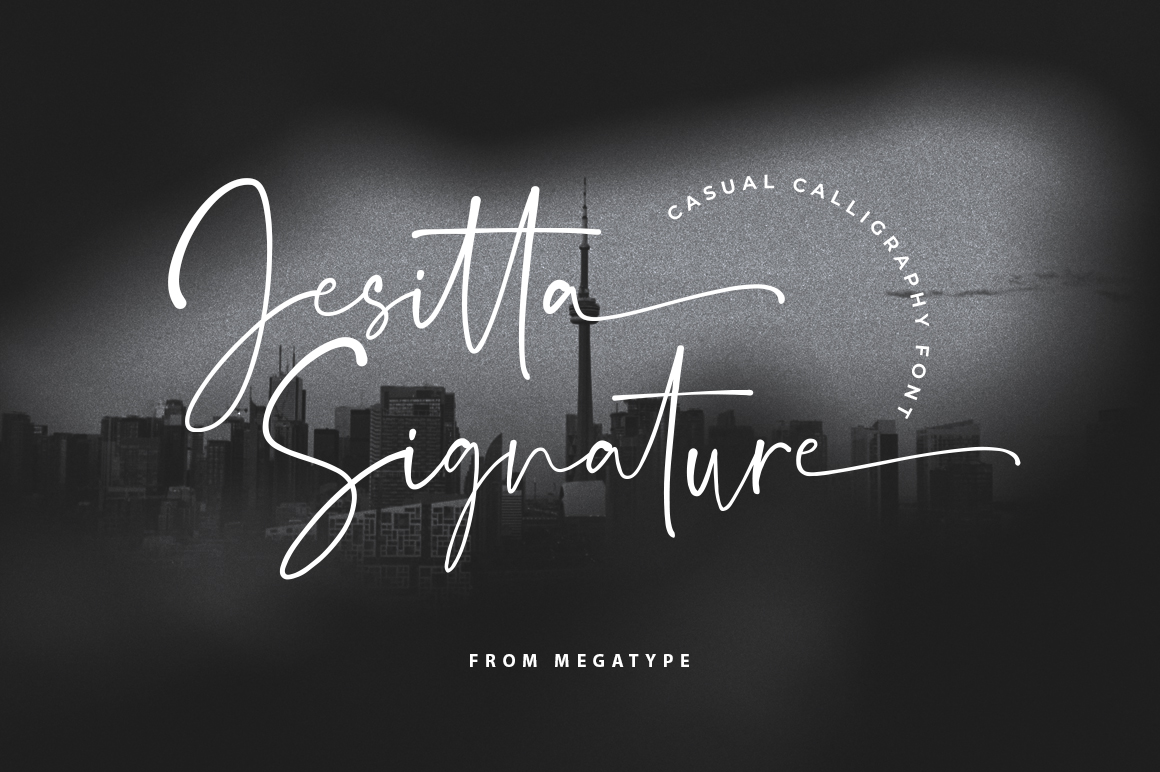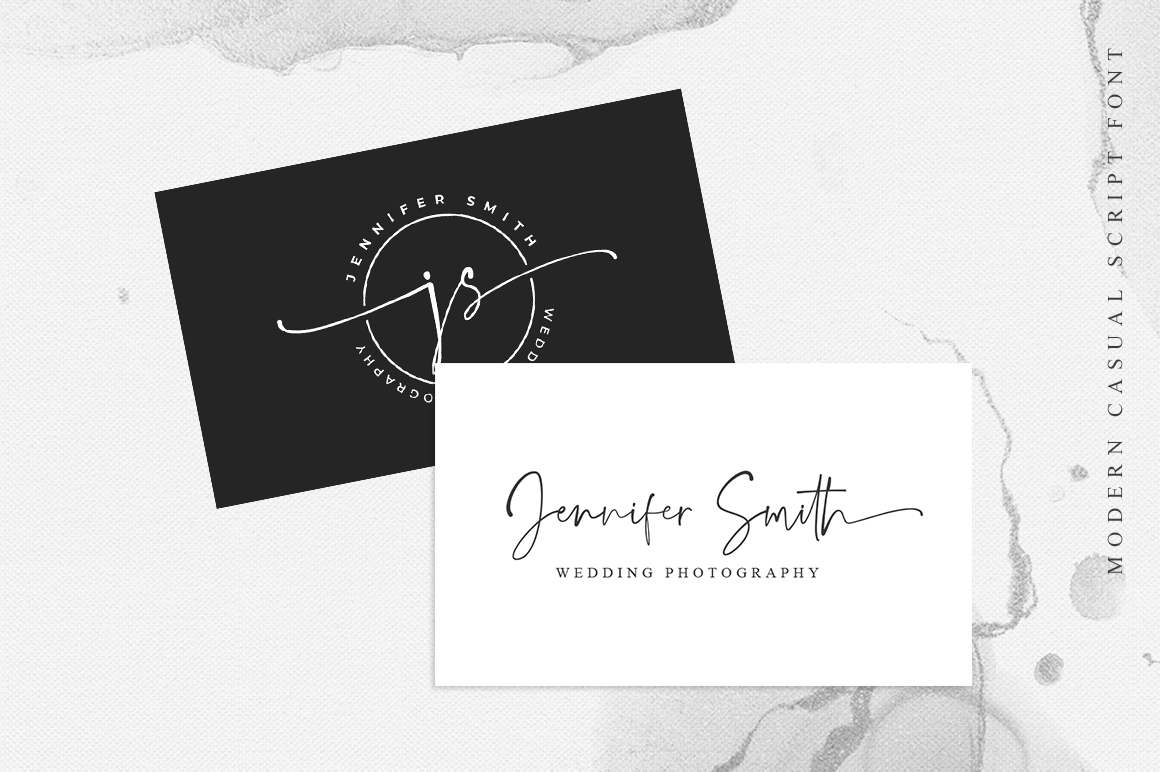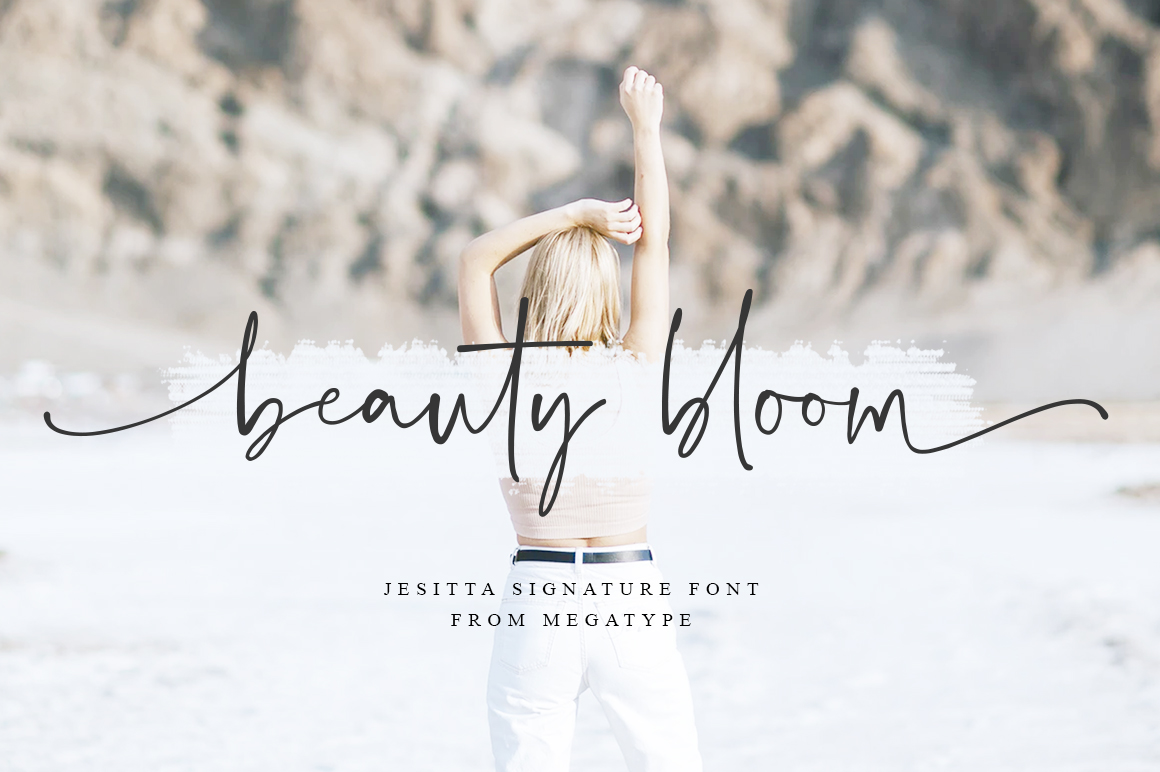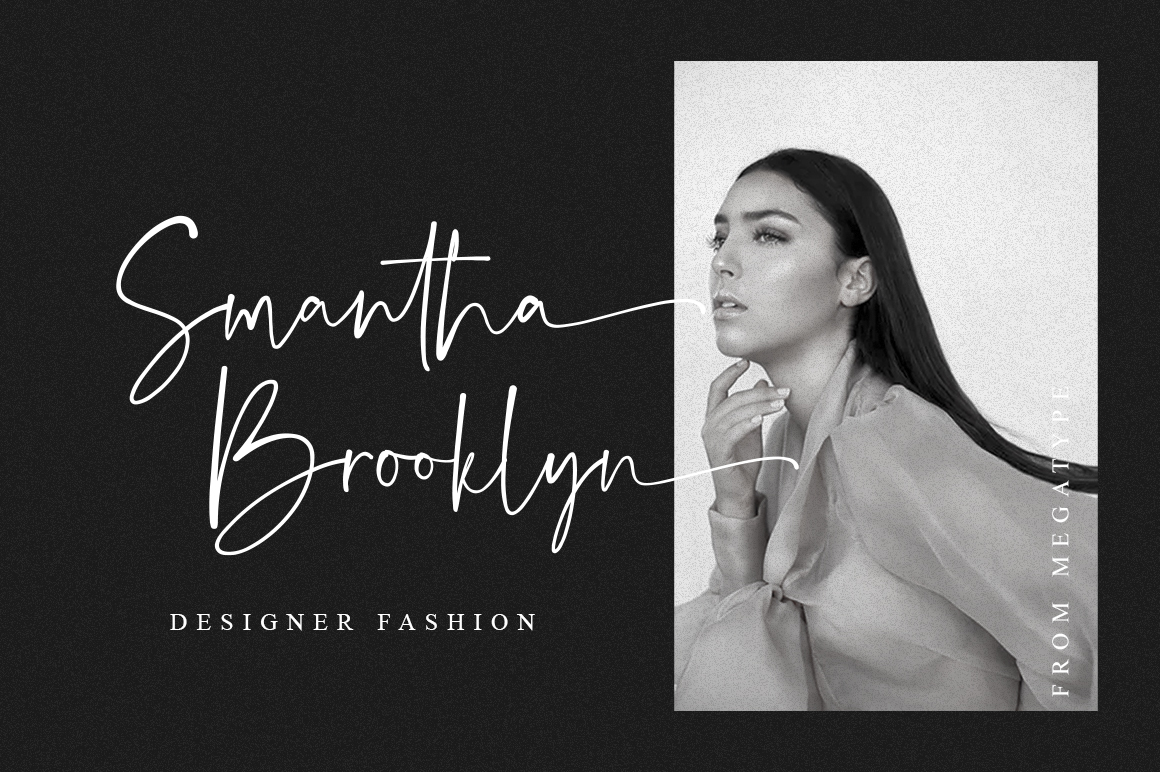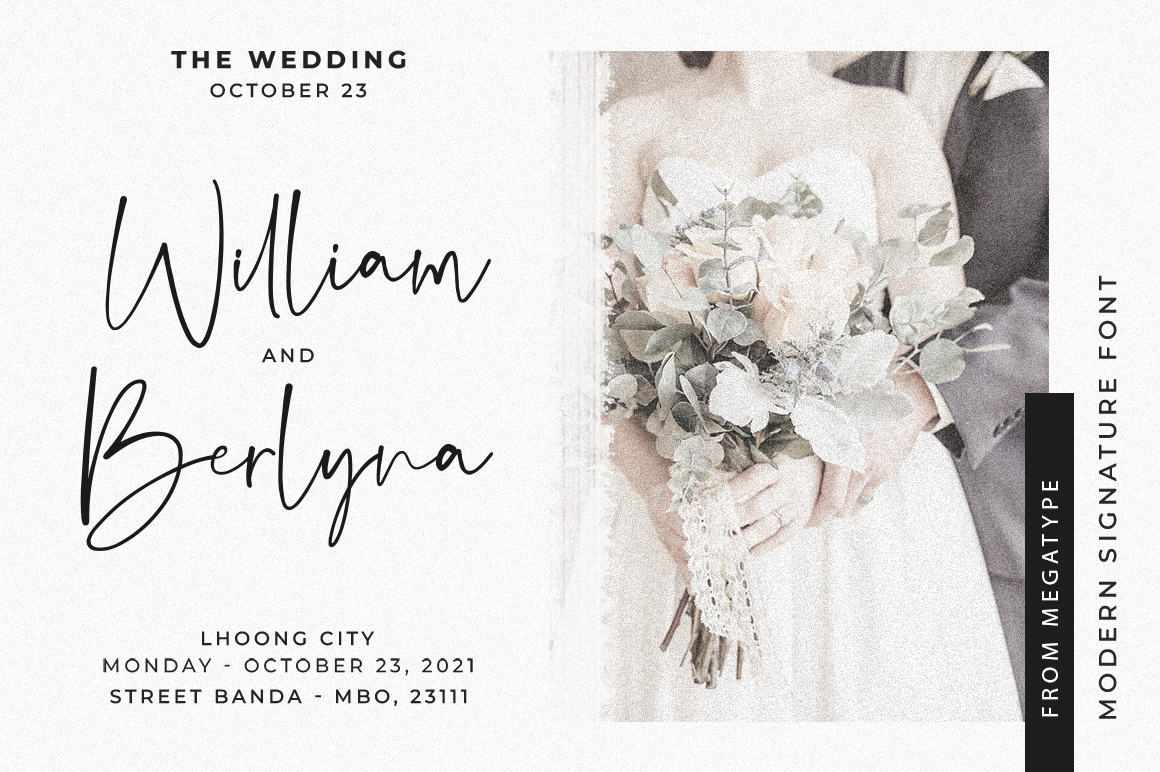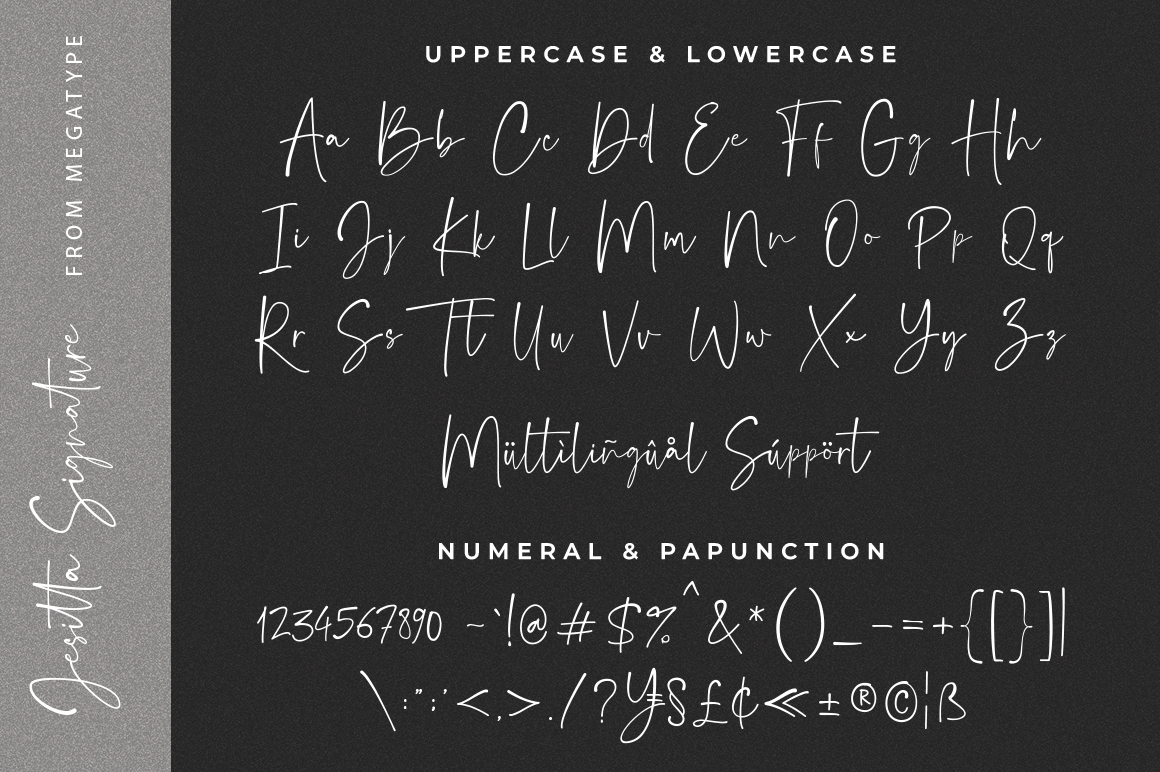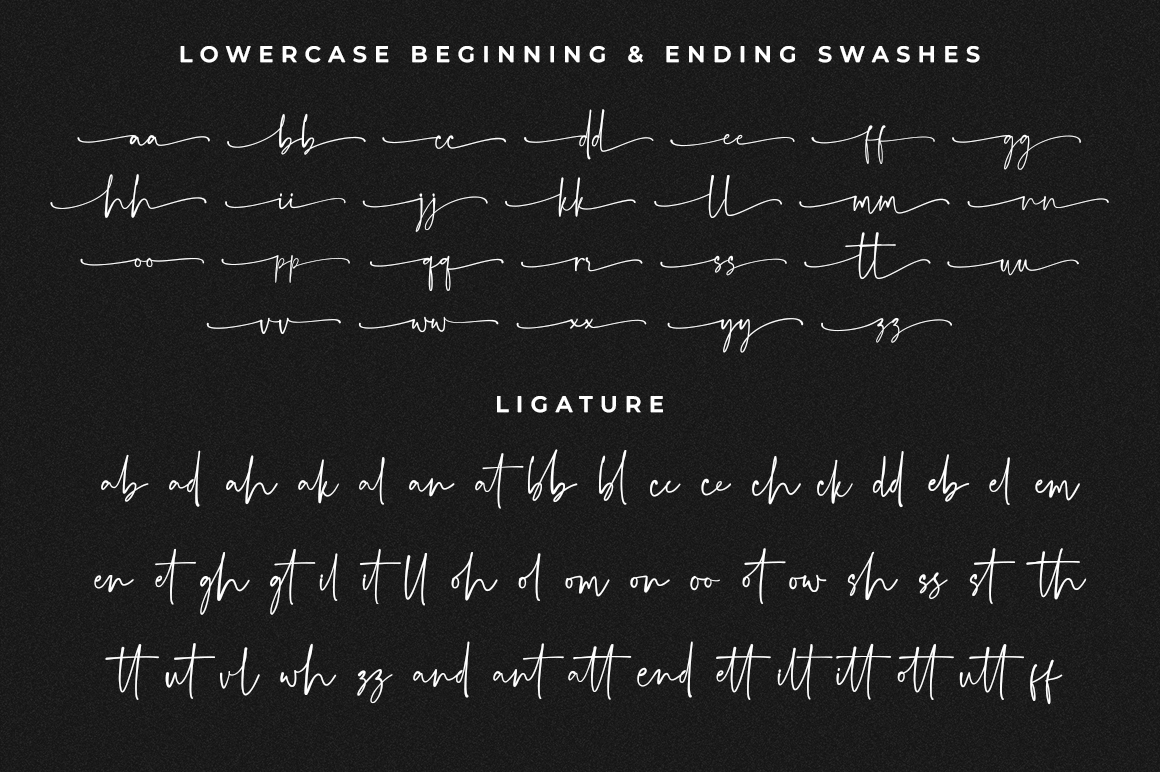
Jesitta Signature Font is a modern and elegant signature style script font with magical ink strokes.
Jesitta Signature is a great choice for watermarks on photography, advertising, logos & branding, watermarks, weddings, invitations, product design, labels and other design projects.